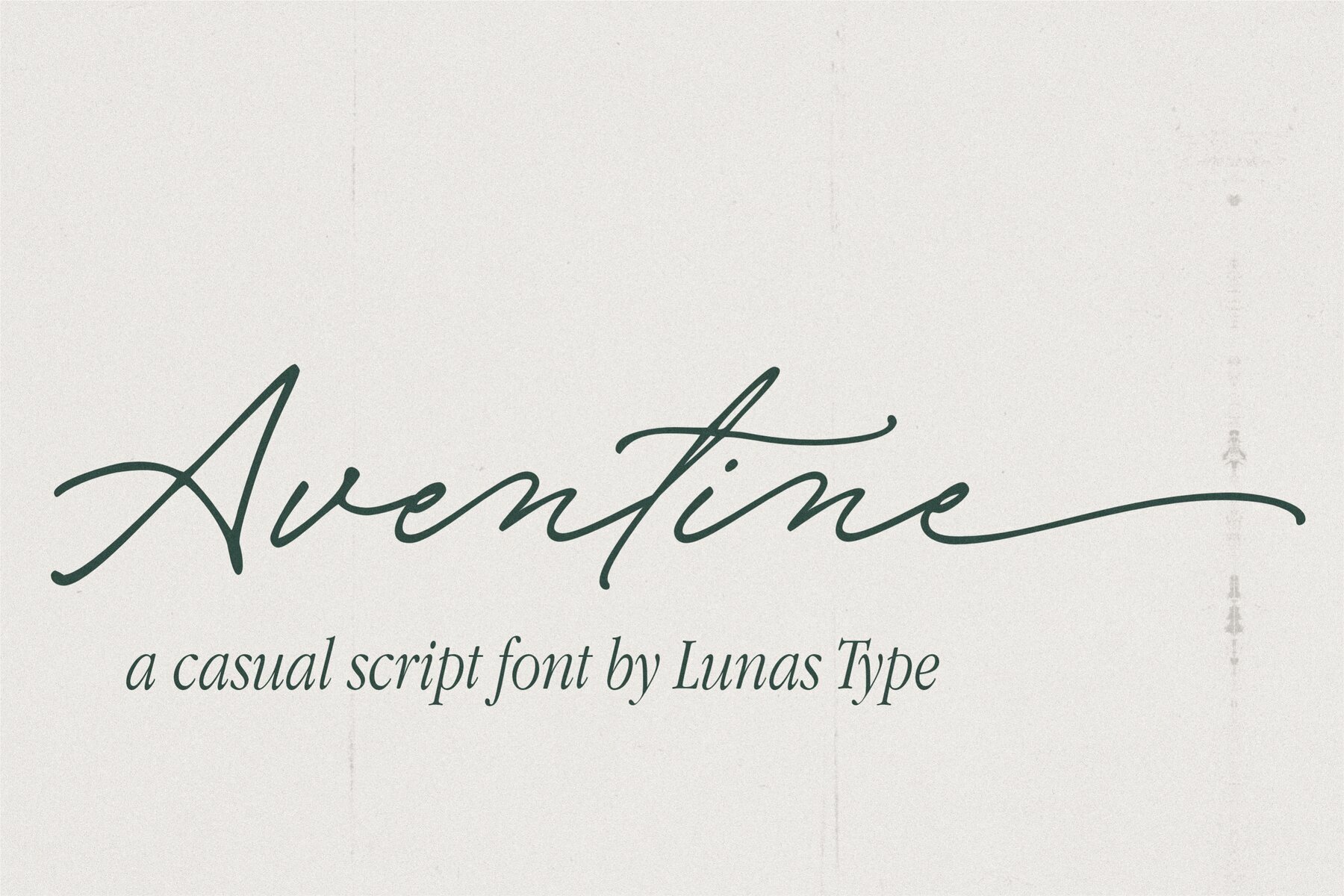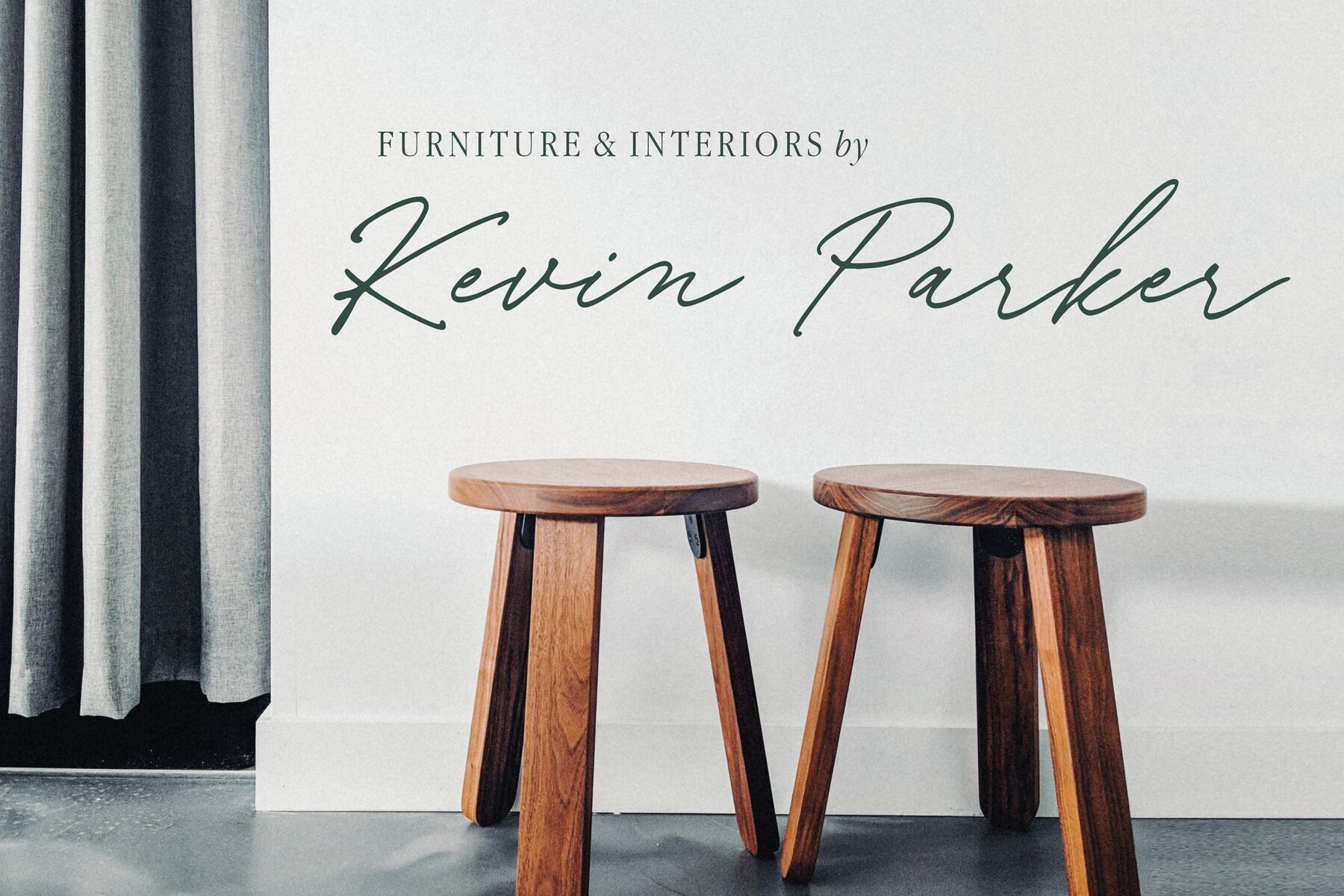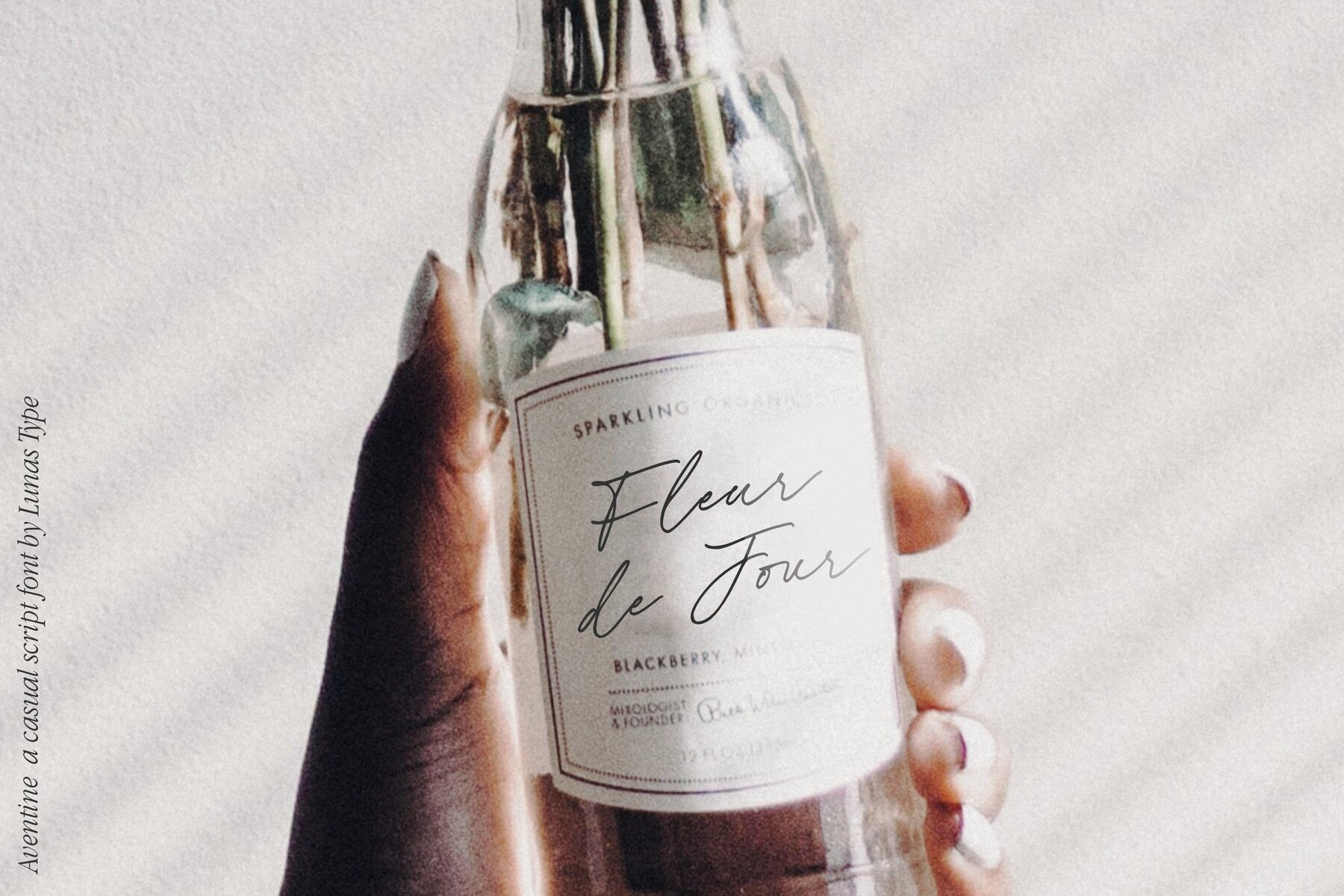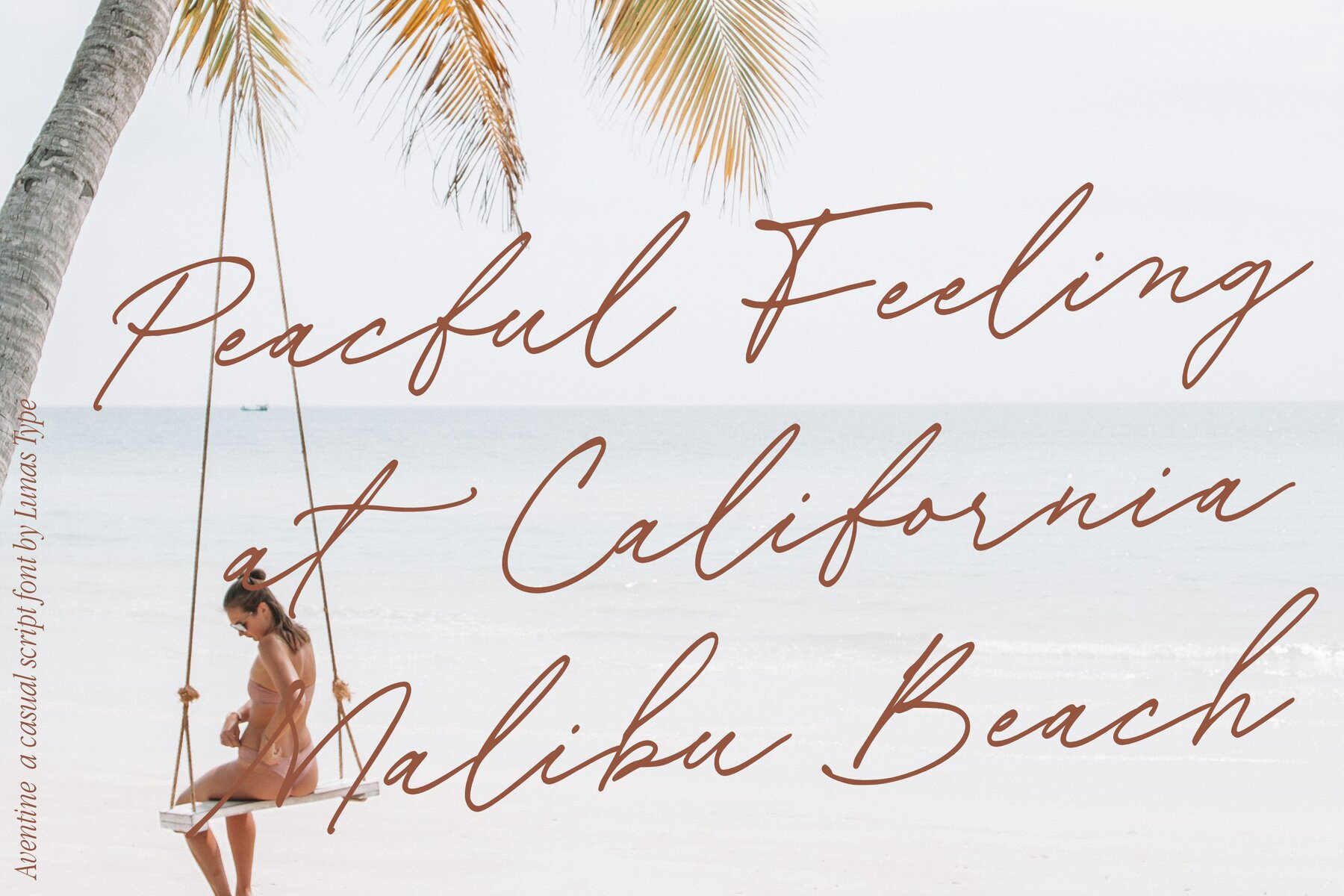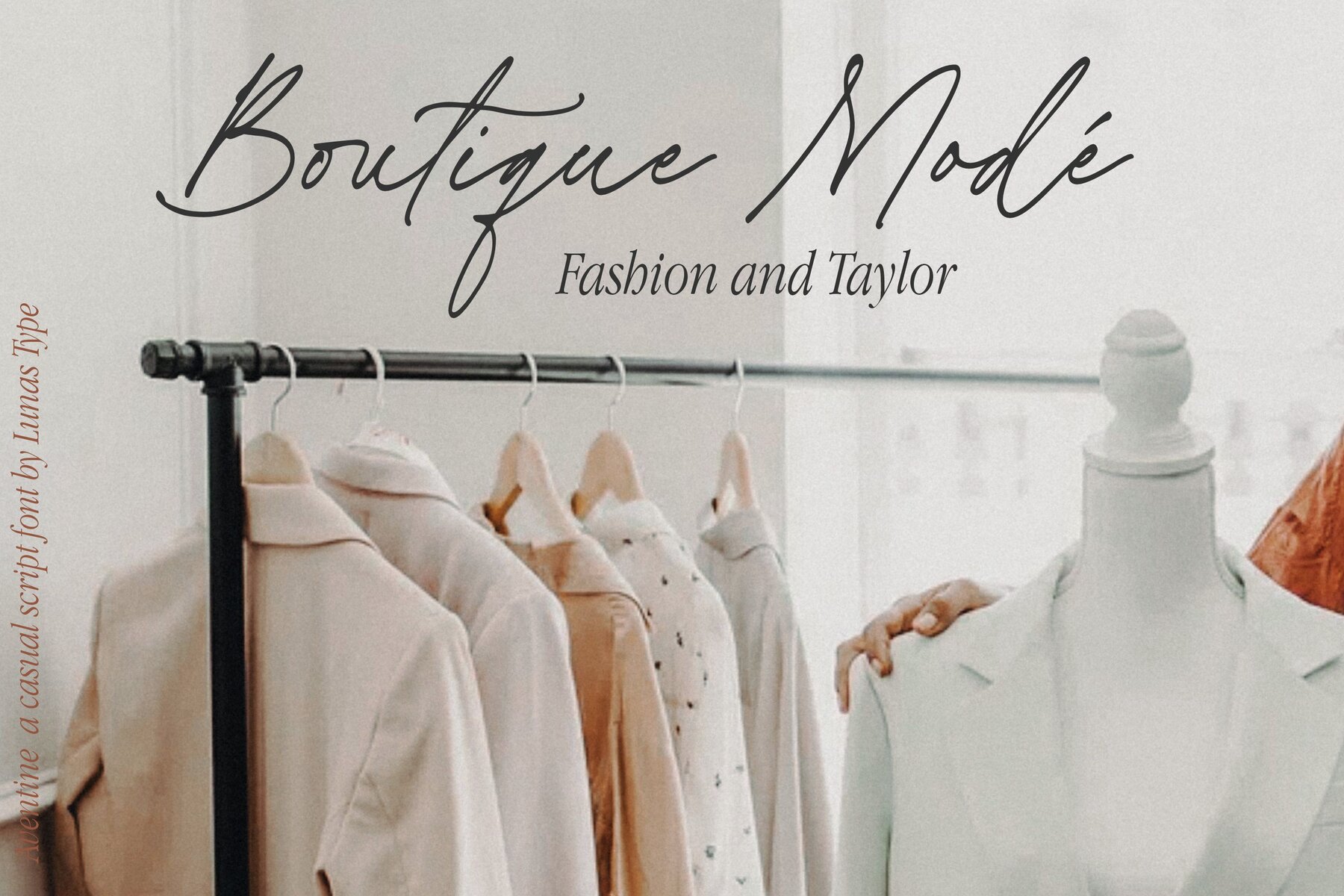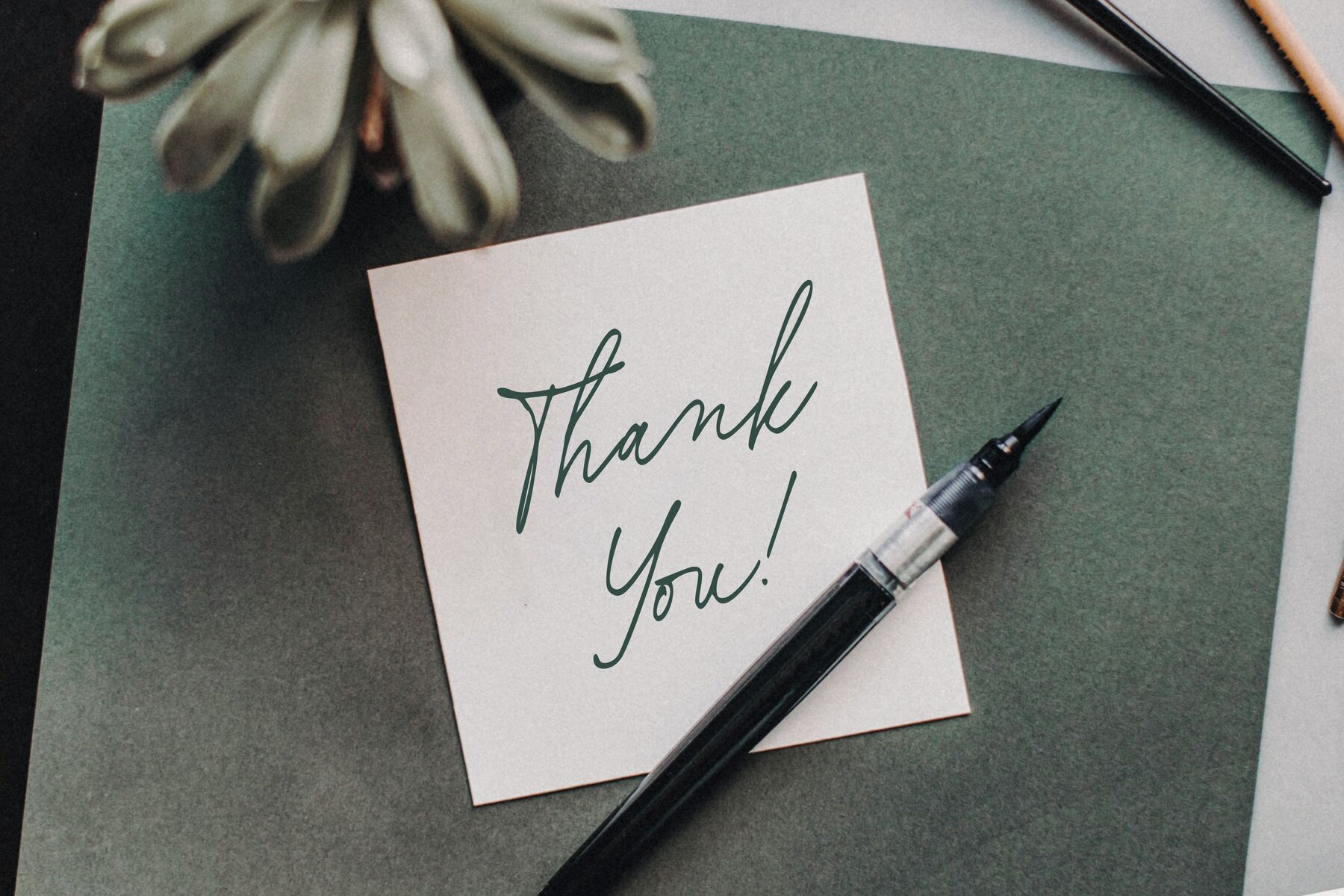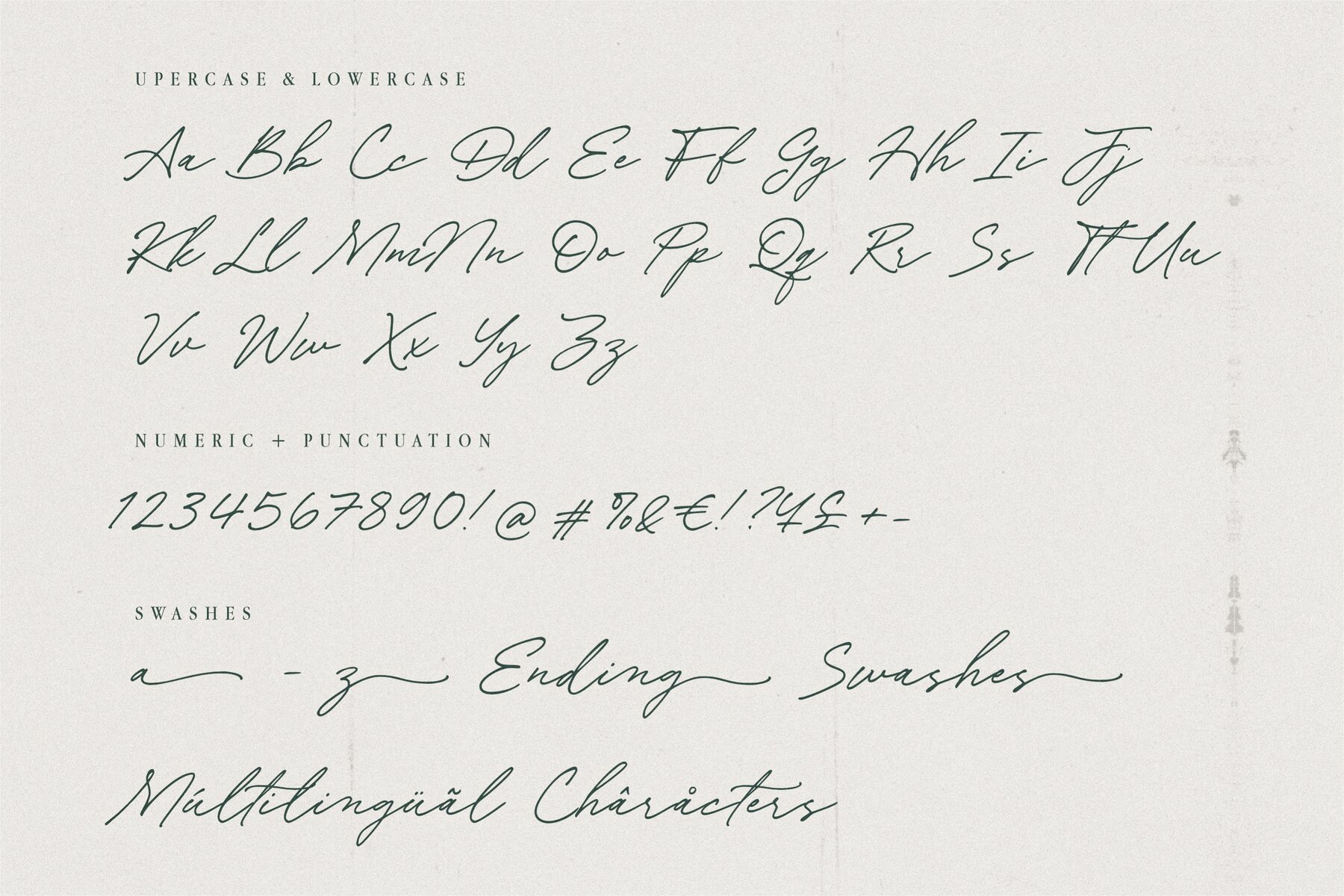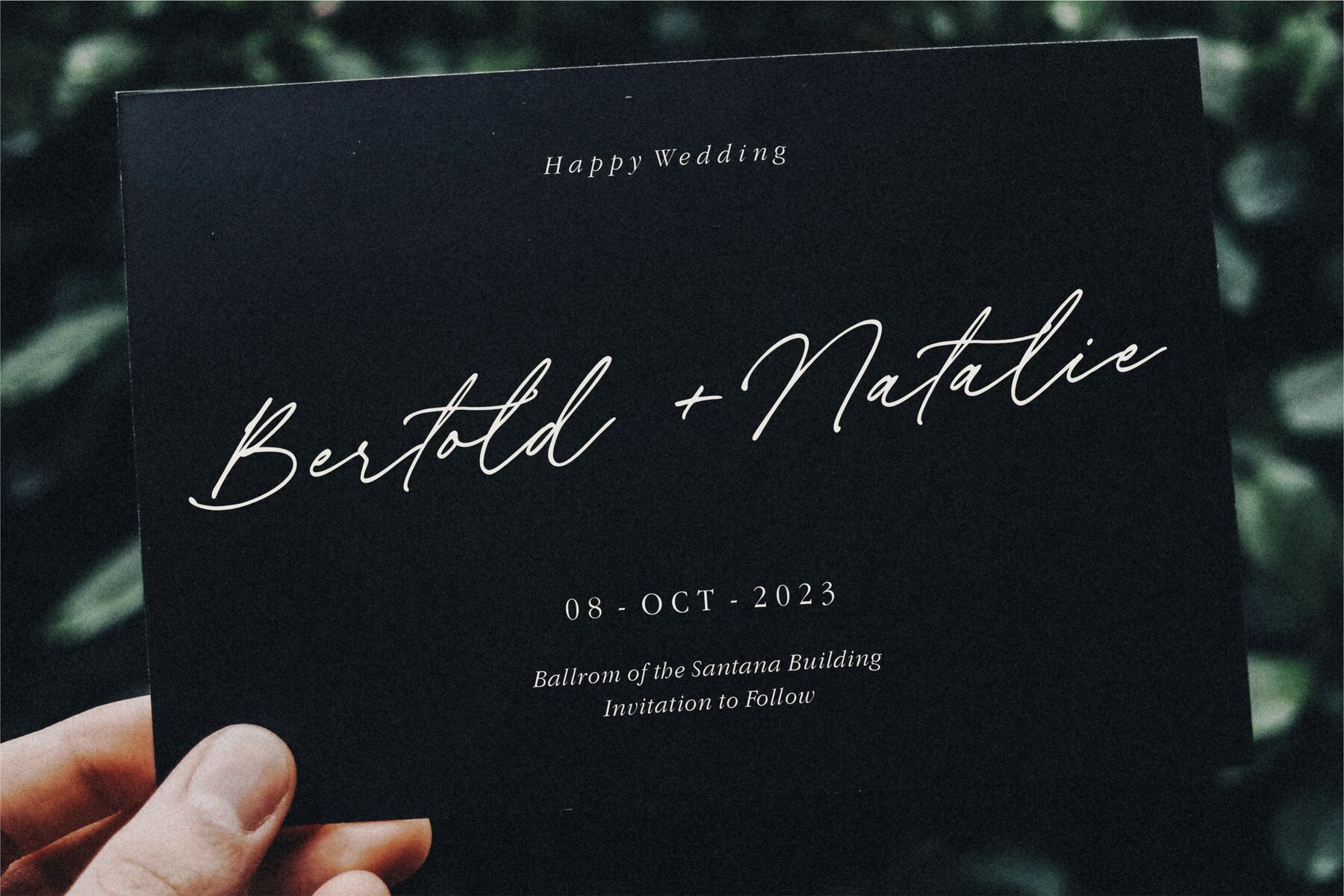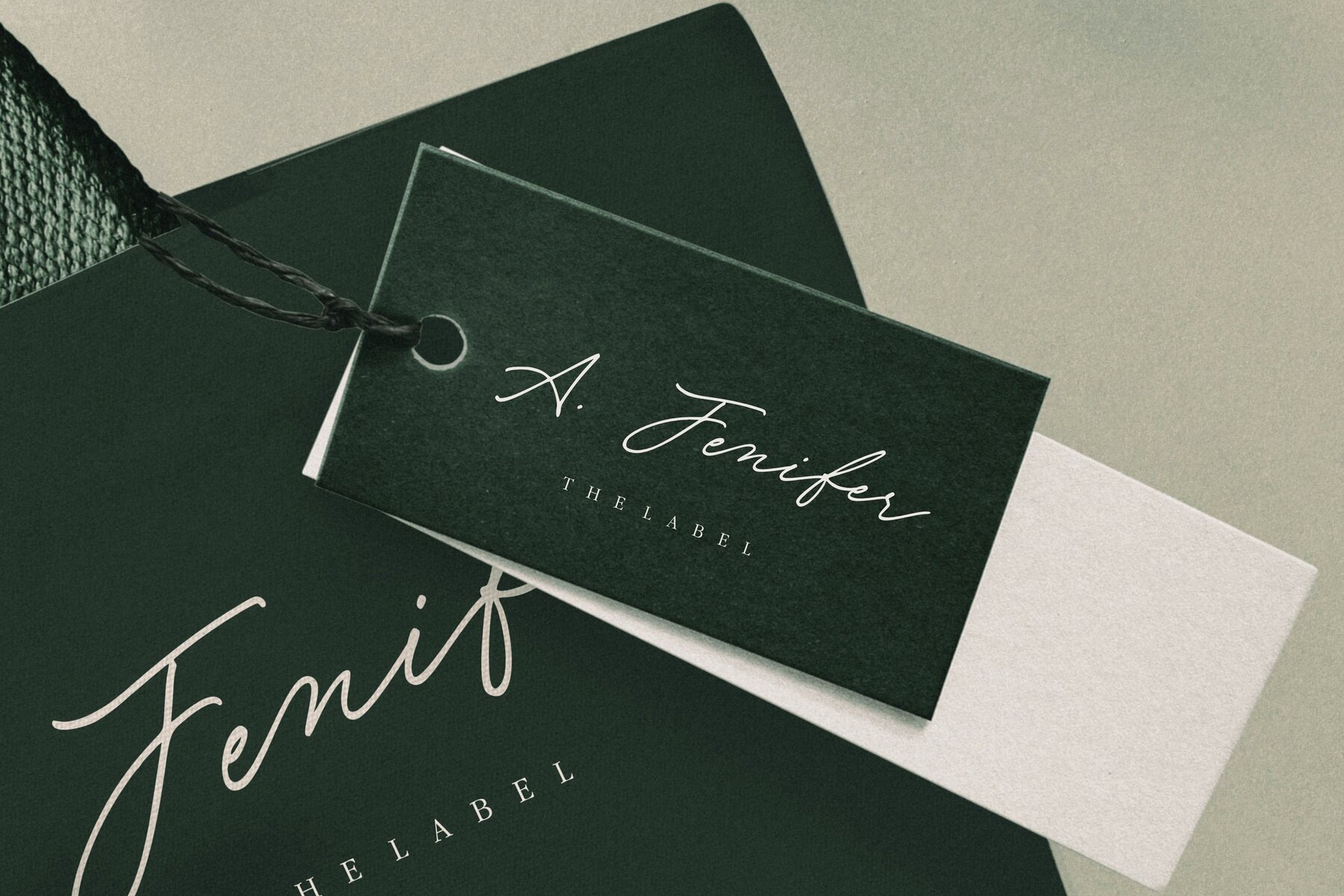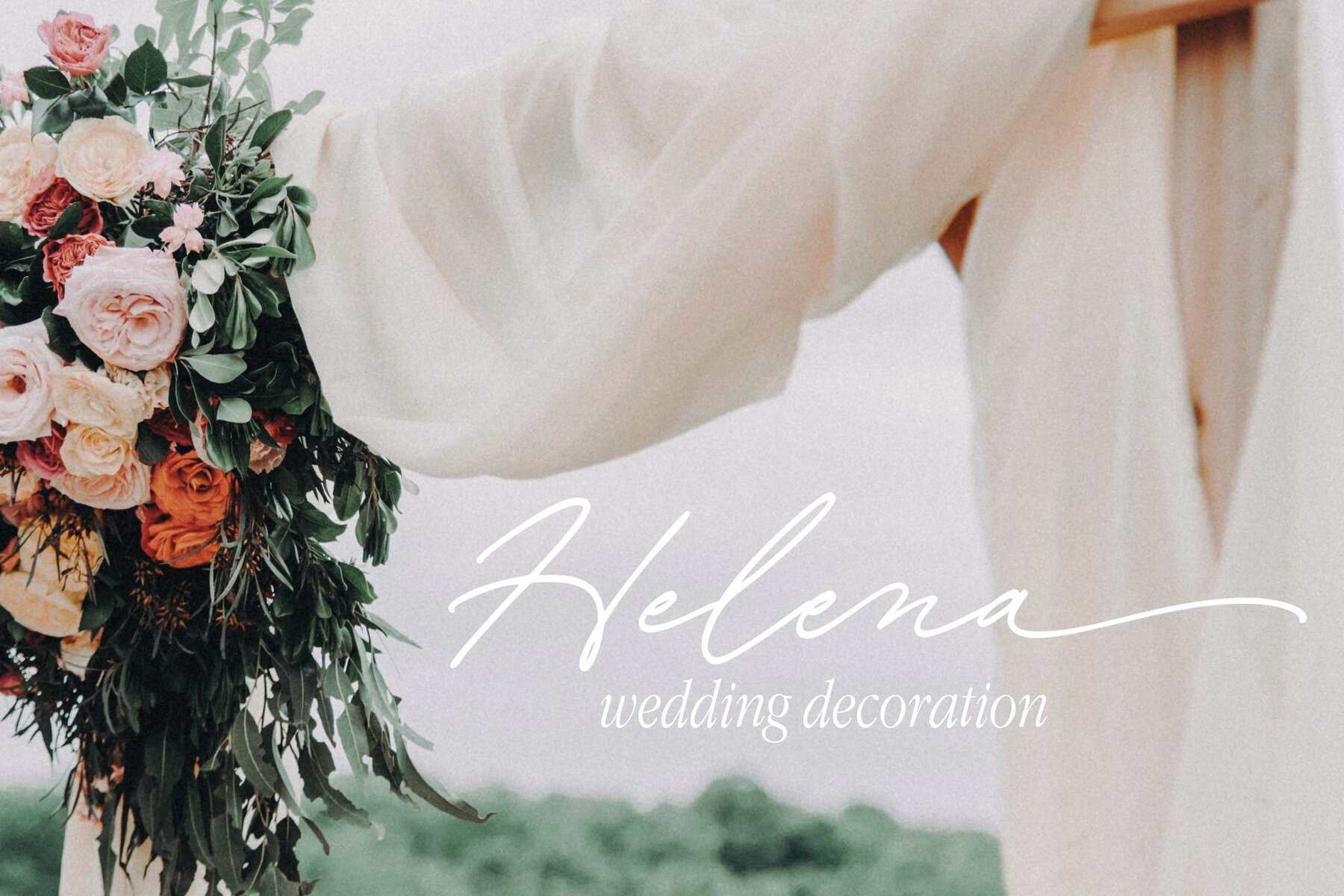
Aventine Font
Aventine Regular
Introducing, Aventine! A captivating script font that seamlessly blends the allure of handcrafted artistry with a casual and inviting style. This signature font embraces the essence of a natural and cozy ambiance, radiating warmth in every character. Aventine's handmade design showcases the intricate details and delicate imperfections that add a touch of authenticity to your projects. Its flowing curves and graceful strokes evoke a sense of intimacy and personal connection. Whether used in a logo, branding materials, or any creative endeavor, Aventine effortlessly exudes a natural charisma that captures attention and creates a lasting impression. Let Aventine be the embodiment of your unique vision, infusing your designs with an inviting and heartfelt charm. What's you get: - OTF, TTF
- Ending Swashes
- Numeral & Punctuation.
- Ligature.
- Multilingual Support.